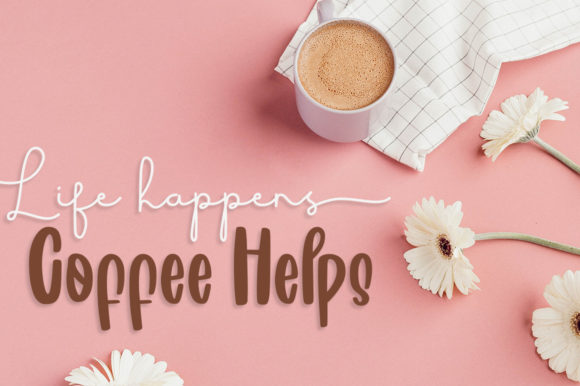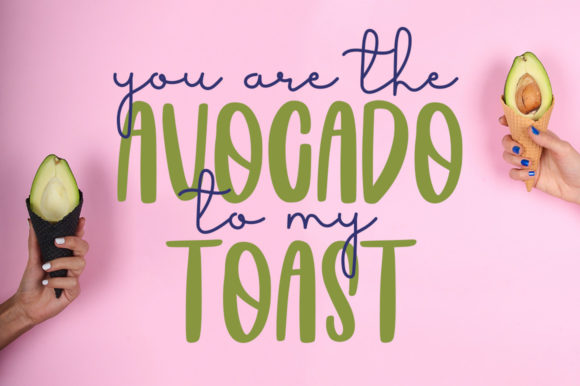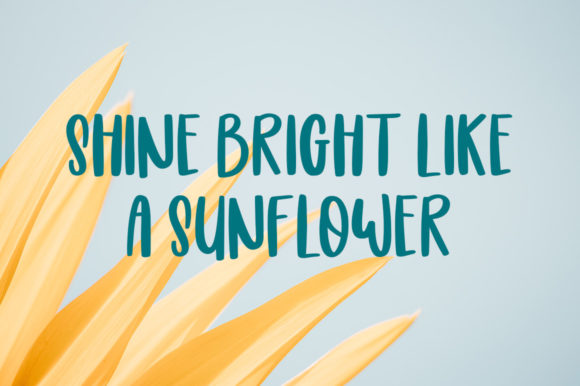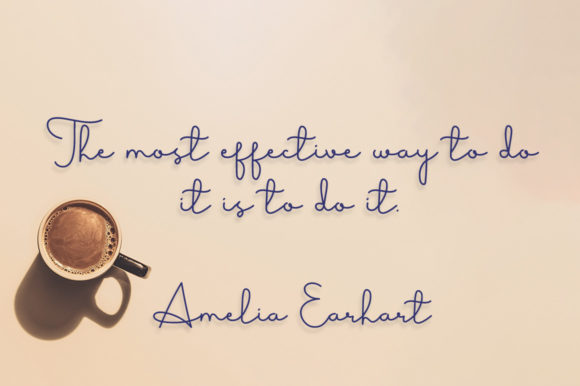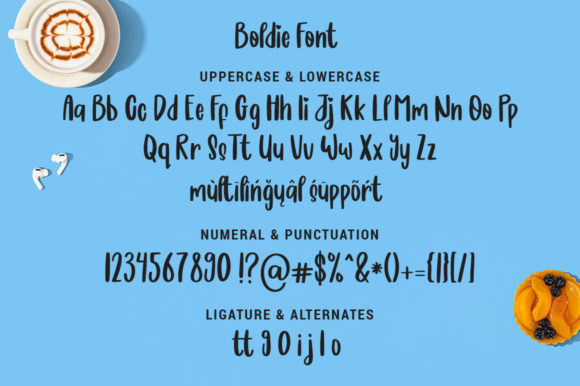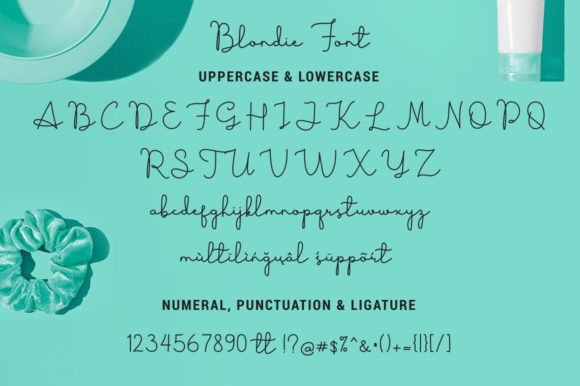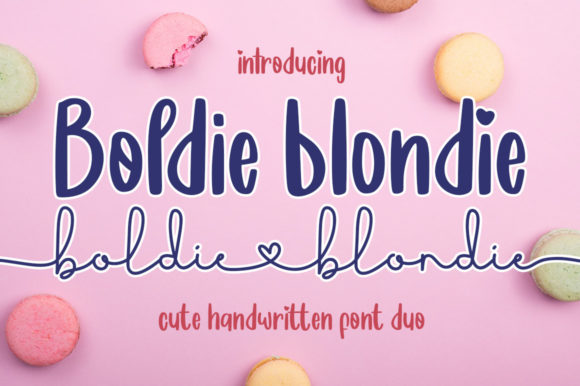
Introducing Boldie Blondie Font: The Ultimate Duo for Creative Projects
Are you a designer, crafter, or DIY enthusiast looking for a font that can elevate your creative projects? Look no further than Boldie Blondie, a distinct yet playful duo font that is perfect for a wide range of applications. In this article, we’ll explore the features and benefits of Boldie Blondie, and show you how it can help you take your designs to the next level.
A Beautiful and Versatile Font
Boldie Blondie is a beautifully crafted font that features neat and elegant characters. Its unique design makes it an excellent match for a wide pool of designs, from modern and sleek to vintage and rustic. Whether you’re creating a logo, branding materials, social media posts, or crafty DIY projects, Boldie Blondie is the perfect choice.
One of the standout features of Boldie Blondie is its PUA (Private Use Area) encoding. This means that you can access all of the glyphs and swashes with ease, giving you maximum flexibility and creative control. With PUA encoding, you can easily insert special characters, ligatures, and other decorative elements into your designs, taking them to the next level.
Boldie Blondie is an incredibly versatile font that can be used for a wide range of projects, including:
- Social Media Posts: Elevate your social media presence with eye-catching graphics and typography that sets you apart.
- Crafty DIY Projects: Add a personal touch to your DIY projects, such as handmade cards, scrapbooking, and other paper crafts.
- Signage and Displays: Create eye-catching signs and displays that grab attention and communicate your message effectively.
Why Choose Boldie Blondie?
So why should you choose Boldie Blondie for your next project? Here are just a few reasons:
- Unique and Playful Design: Boldie Blondie has a distinct and playful design that will set your projects apart from the crowd.
- Elegant and Neat Characters: The font features beautiful, neat characters that are easy to read and visually appealing.
- PUA Encoded: With PUA encoding, you have easy access to all of the glyphs and swashes, giving you maximum creative control.
- Versatile: Boldie Blondie can be used for a wide range of projects, from logos and branding to social media posts and crafty DIY projects.
Tips for Using Boldie Blondie
Here are a few tips for getting the most out of Boldie Blondie:
- Experiment with Different Sizes and Colors: Don’t be afraid to experiment with different sizes and colors to find the perfect combination for your project.
- Mix and Match: Try mixing and matching Boldie Blondie with other fonts to create a unique and eye-catching design.
- Use Swashes and Glyphs: Take advantage of the PUA encoding to add special characters, ligatures, and other decorative elements to your designs.
In conclusion, Boldie Blondie is an exceptional font that is perfect for designers, crafters, and DIY enthusiasts. Its unique and playful design, elegant and neat characters, and PUA encoding make it an excellent choice for a wide range of projects. Whether you’re creating logos, branding materials, social media posts, or crafty DIY projects, Boldie Blondie is the perfect duo font to help you take your designs to the next level.